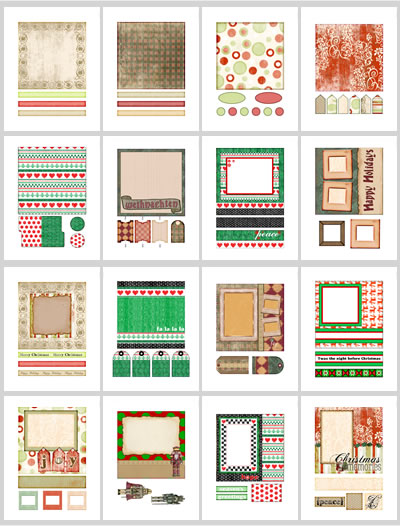
FOLK CHRISTMAS
1.
Happy Thanksgiving! Free Tidings of Joy Alphabet |
Even
though Thanksgiving seemed to sneak up on me while I wasn’t
paying attention, I’m as excited for the day as I
have been in a long time. This year, I’ll be celebrating
Thanksgiving with my parents and brothers for the first
time in many years – 16 to be exact. We have all
been assigned our specialties to contribute to the menu
and although we may be eating for days, I’m looking
forward to a day of family, fun, football, and of course,
food.
Just as I am thankful for this chance to spend Thanksgiving with my family, we are thankful for all of you who use
and enjoy Lettering Delights. To show our thanks, we have
a special gift to help you get your holiday celebrations
off to a great start; Tidings
of Joy is a brand new holiday
alphabet and our free gift to you.
The day itself will come and go much too quickly, but
Thanksgiving is often considered the beginning of the holiday
season. Whether your holiday activities are just getting
underway or if you have been preparing for a while (Santa
arrived at a mall near my home two weeks ago!) we hope
you take the time to enjoy all of the memorable moments
the coming weeks will bring.
Happy Thanksgiving to each of you!
Alphabets and
Journaling
Delights are great tools to create fun and unique
scrapbook pages, cards, invitations, posters and more.
With Tags and Paper
Packs, there is even more to create.
I found this great shadow-box frame at a local shop and
especially loved the clip and angled placement of the photo.
I was not, however, a fan of the patterned paper it came
with. Instead, I replaced it with the Design Pattern from
the Character
Paper Pack. Lettering Delights products have
limitless uses!
3.
Folk Christmas, New International Font |
Celebrate Christmas around
the world with Folk
Christmas.
Countries throughout the world have unique |
Christmas traditions
and images all their own. Folk Christmas celebrates these
Christmas traditions of Western European and Scandinavian
cultures with exclusive designs and charming style.
| The Folk Christmas
Plus, great news! For the first time, we’ve created
an international font with an extended character set
for Western European languages. The new font LDI
Fancy Folk has 76 more characters than our regular fonts. And
Christmas Bundle). Journal away
in Spanish, Italian, French, Portuguese or German.
| The colors and designs of Folk
Christmas continue to spread holiday cheer with matching
Tag
sheets and Paper
4.
Flora Christmas Bundle |
splendor in the new Flora
Christmas bundle. Each design blooms with delightful color in and
alphabet and Journaling Delight.
Packs are a great way to add the
Flora Christmas palette and patterns to
all of your holidays projects. |
5.
Rani’s Wonderland Bundle, Tags and Paper Packs |
A childhood classic comes
to life in Rani’s
Wonderland Bundle.
Everything and everyone you’d expect to find in
the rabbit hole of a |
child’s imagination can be found
in Rani’s Wonderland Bundle. Full of color and creativity,
the images of a storybook favorite are perfectly ‘Wonder’ful.
| Tags and Paper
Packs are a ‘wonder’ful way to accent Rani’s
Wonderland designs for scrapbook layouts, cards, invitations
and party favors. |
Make great keepsakes with Mini
Albums!
Lettering Delights designers have done the work for you,
using matching designs, colors and patterns to make 16
different 6x6 pages in each of these four new Mini Albums – available
in digital and .pdf formats. Use page layouts as is, add
printable tags and trimmings, or use ribbons, brads and
charms for a personal touch.
Share Christmas memories with far away family and friends
with the Folk
Christmas and Flora
Christmas Mini Albums.
Jillustration’s
Yearbook Mini Album is perfectly designed for twelve
everyone. Each wrapper is easy to print from a |
trim and wrap around your favorite candy bar. Wrap up holiday
treats for the office or the classroom, and be sure to
keep some on hand for any unexpected visitors at home.